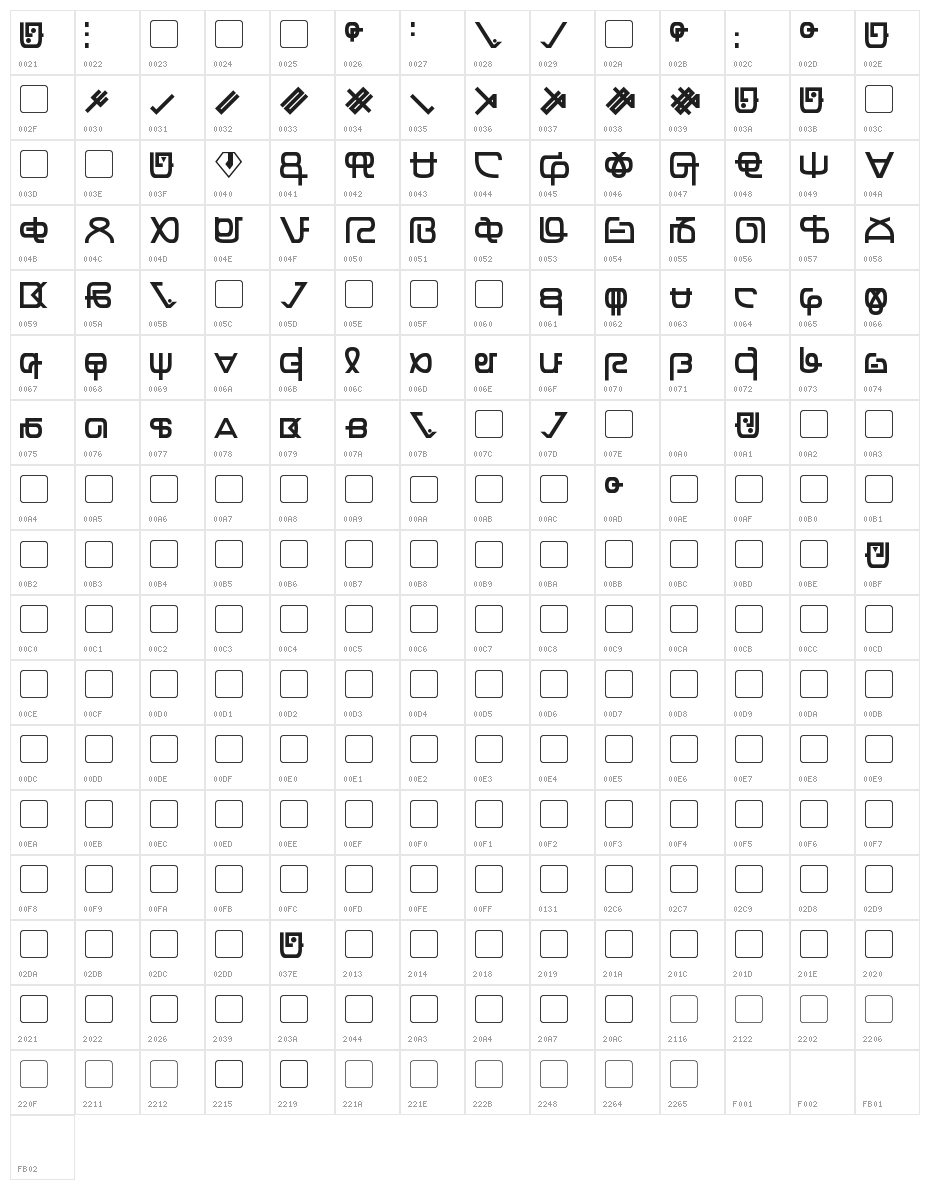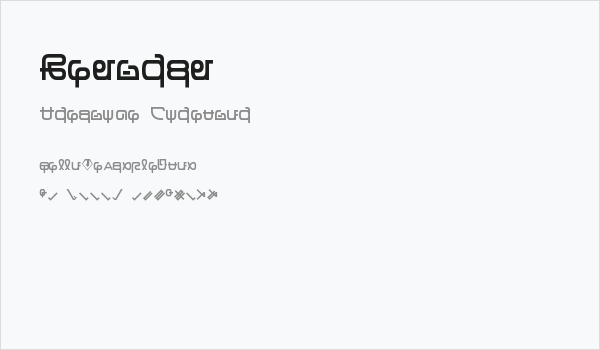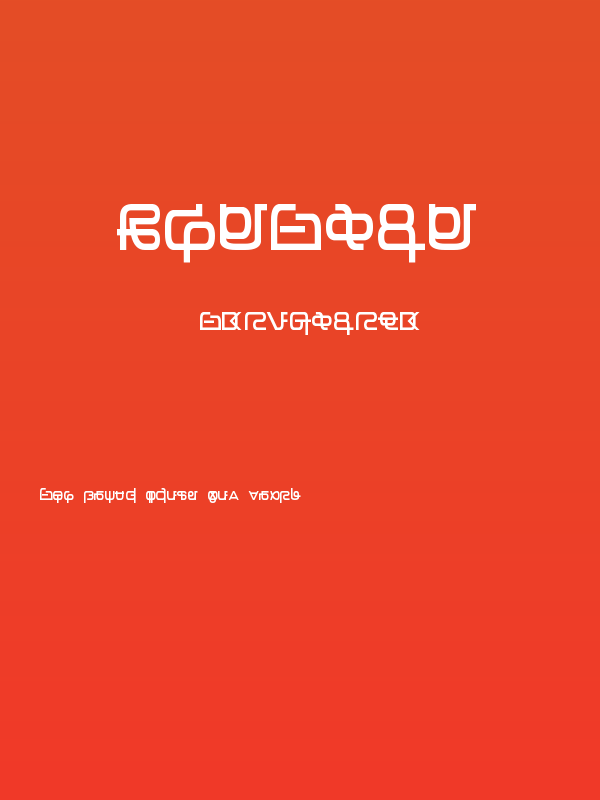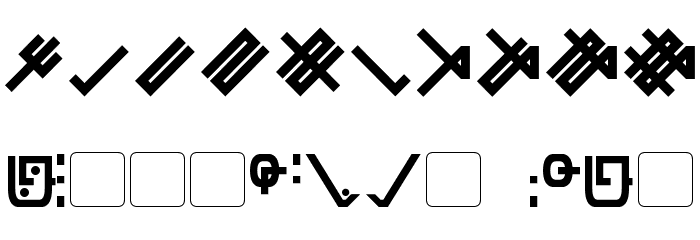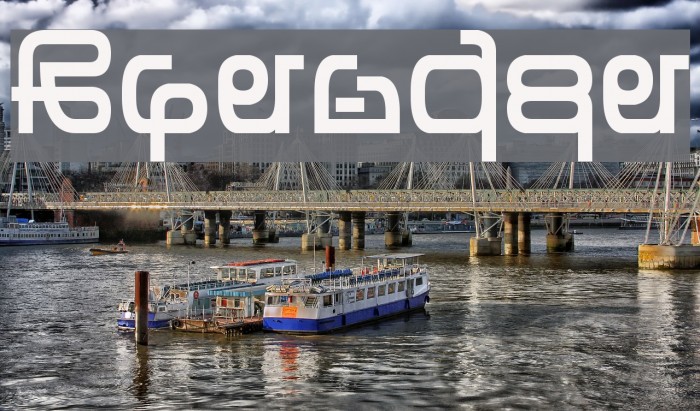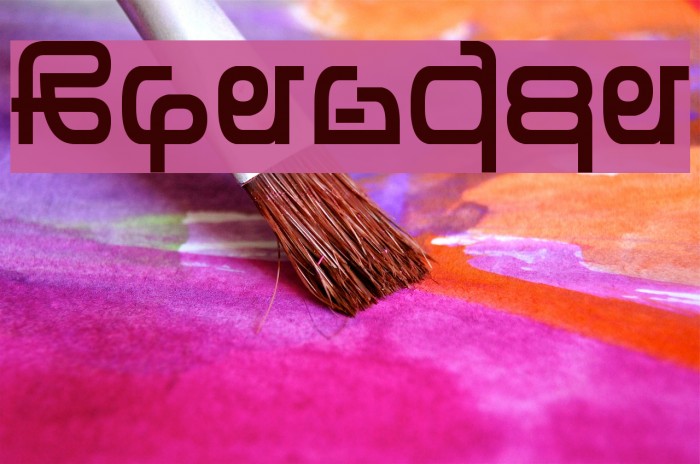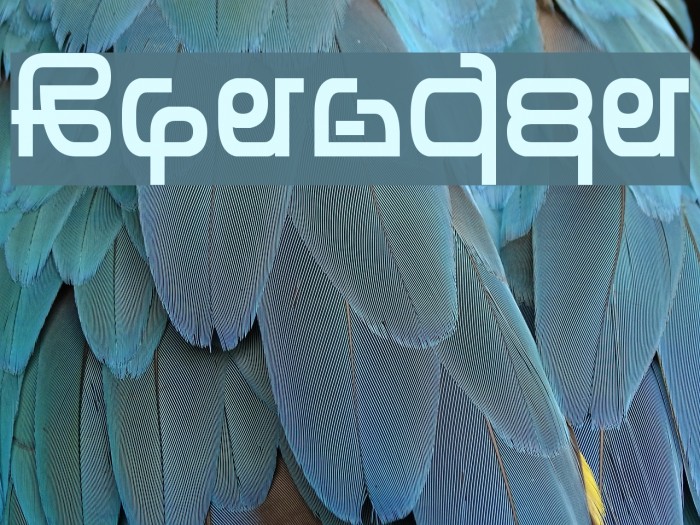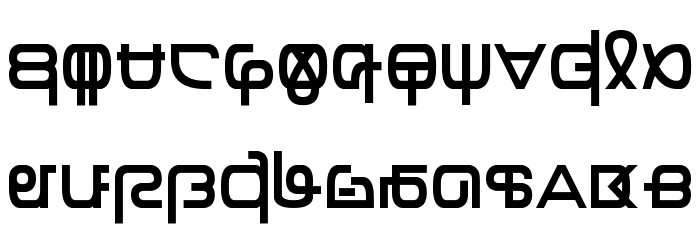
Zentran Font
Zentran Description
This font features a highly stylized and futuristic design, characterized by its geometric shapes and bold lines. The characters are crafted with a unique blend of angular and curved elements, creating an abstract and alien-like appearance. The uppercase and lowercase letters maintain a consistent style, with each character exhibiting a distinct and unconventional form. The numbers and special characters follow the same design principles, adding to the overall cohesive look. This font is ideal for projects that require a modern and unconventional aesthetic, offering a striking visual impact.
| Proposed Projects | Ideal for sci-fi themed projects, video game interfaces, movie posters, and branding for tech companies. |